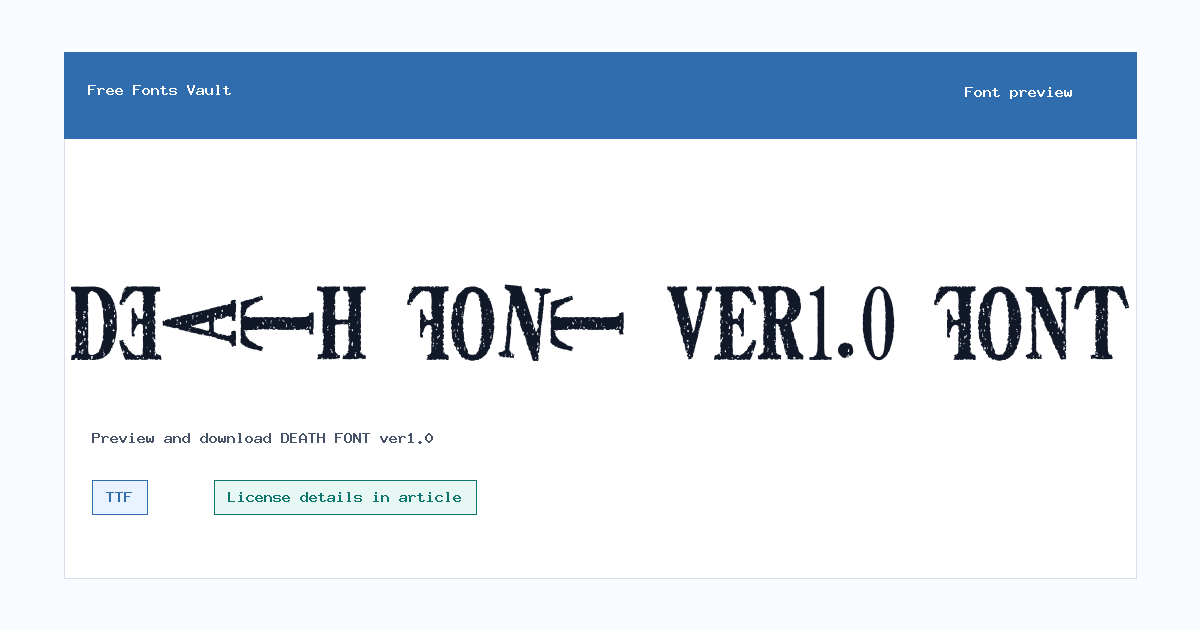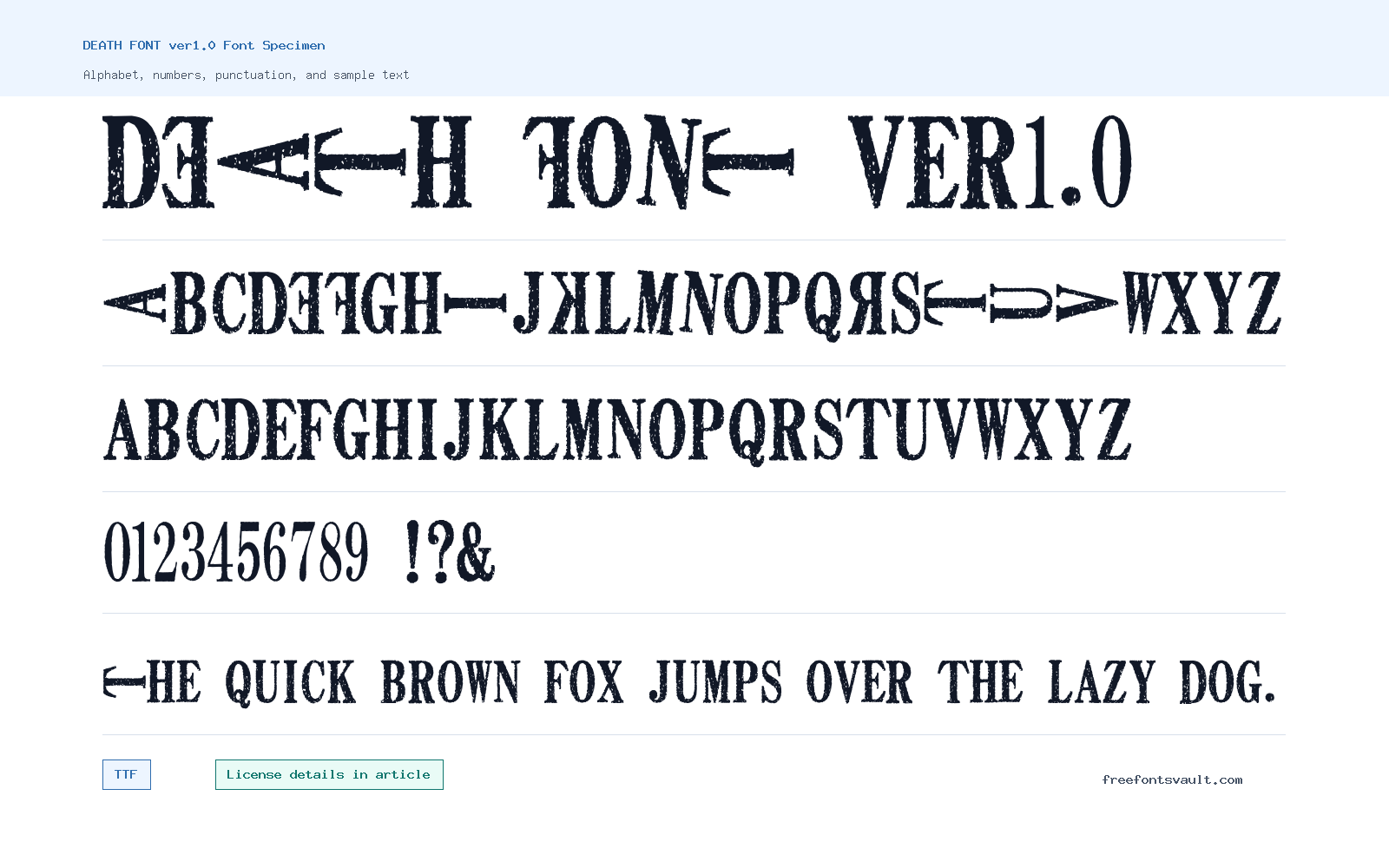
DEATH FONT ver1.0
DEATH FONT ver1.0 font preview showing the family name
DEATH FONT ver1.0 Font
DEATH FONT ver1.0 font specimen showing alphabet, numbers, and sample text
DEATH FONT ver1.0 font.
DEATH FONT ver1.0 is a display-style font with a name that points toward dark, horror, metal, or Halloween-inspired design work. It is best approached as a font for short, high-impact text rather than long reading.
About DEATH FONT ver1.0
DEATH FONT ver1.0 comes as a regular TTF font file. Because the family name is strongly themed, it will usually make the most sense in designs that need a tense, bold, or unsettling mood. Try it first in single words, short titles, event names, poster headings, game screens, YouTube thumbnails, cover art, or social graphics where the font can act as the main visual element. Fonts with this kind of title often work best when the surrounding layout stays simple, so the lettering does not have to compete with too many textures, effects, or background details.
• Regular style with normal weight, suitable for display use and headline testing.
• Horror posters, Halloween graphics, dark event titles, and themed social media images.
• Short logos, game titles, cover text, thumbnails, stickers, and dramatic one-word designs.
What kind of font is DEATH FONT ver1.0?
DEATH FONT ver1.0 is best treated as a themed display font. Its name makes it a natural choice for dark, horror, Halloween, metal, game, or poster-style designs, especially when used for short text.
Is DEATH FONT ver1.0 good for body text?
It is better for headings, titles, and short phrases. For paragraphs or small labels, use a simpler companion font so visitors can read the information comfortably.